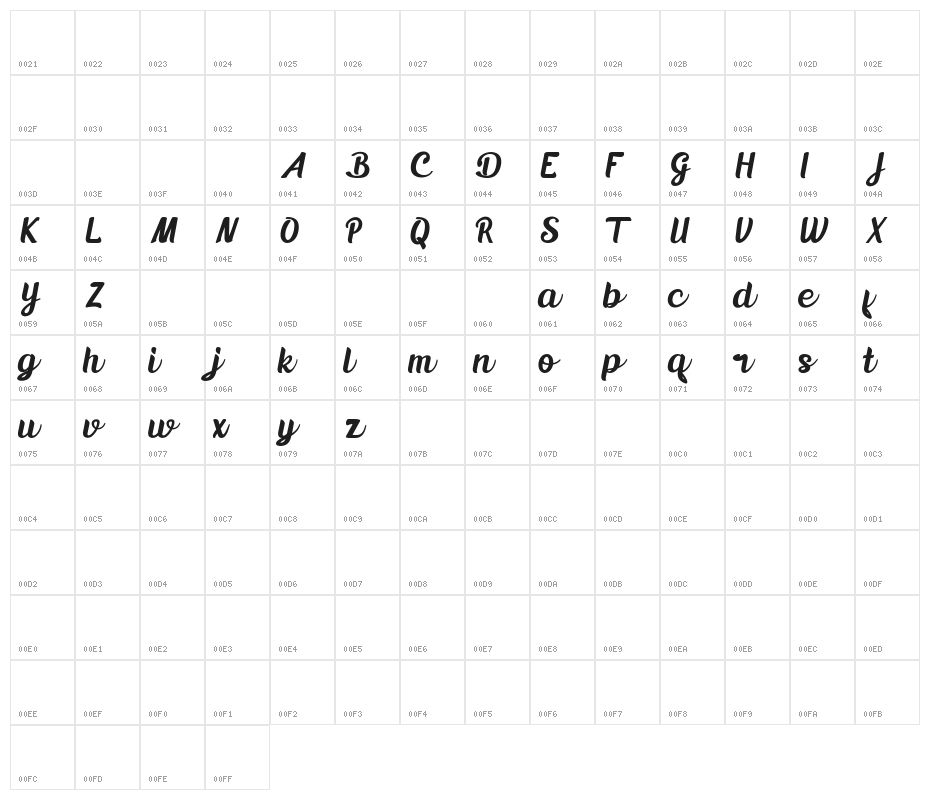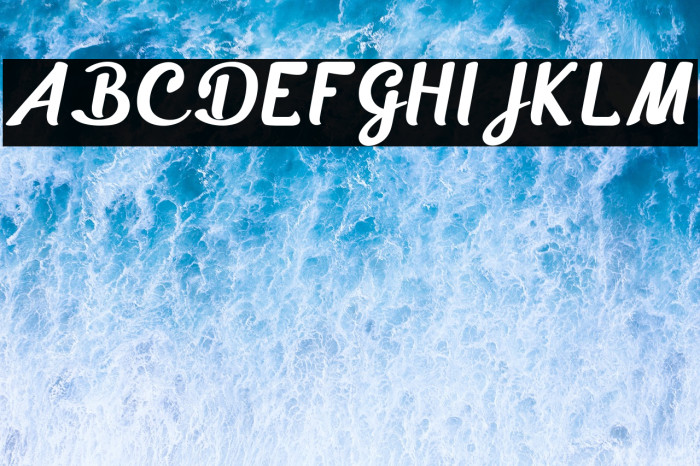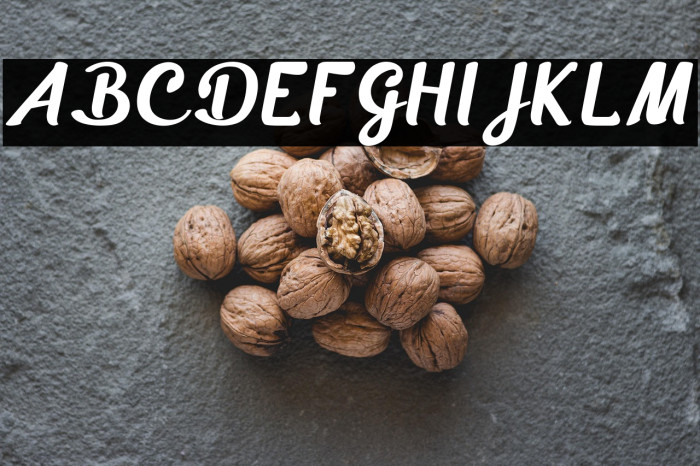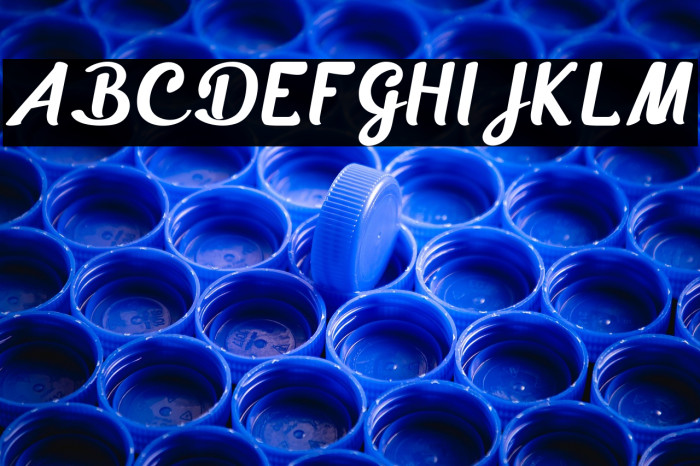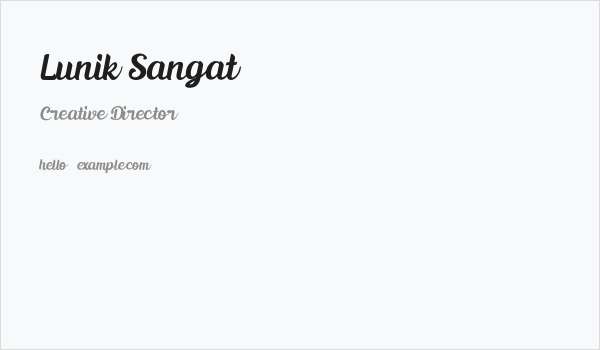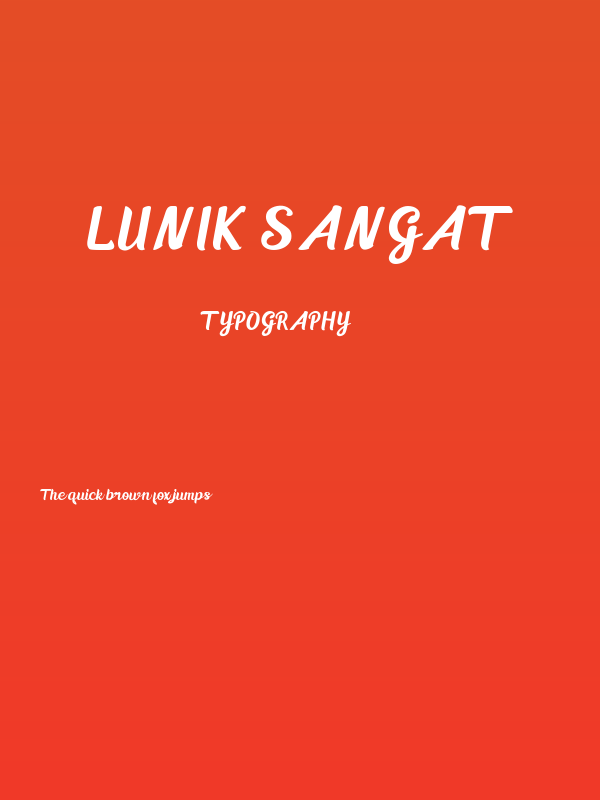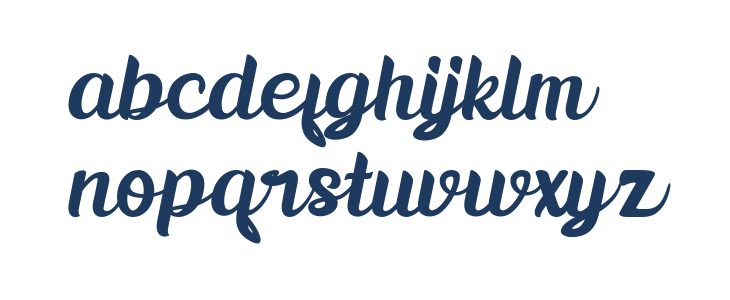
Lunik Sangat Font
Lunik Sangat Description
This font features a bold and dynamic script style with a modern flair. The uppercase letters are slightly slanted, giving a sense of movement and energy, while the lowercase letters maintain a consistent flow with elegant curves and loops. The strokes are thick, providing a strong presence, and the overall design is cohesive, making it suitable for impactful and eye-catching designs. The characters are well-spaced, ensuring readability despite the boldness of the strokes. This font is ideal for projects that require a touch of sophistication and style.
Use CaseLogos, Headlines, Invitations
Proposed ProjectsIdeal for branding, logos, headlines, and invitations that require a stylish and modern touch.